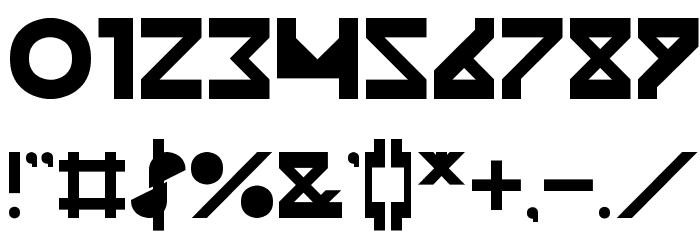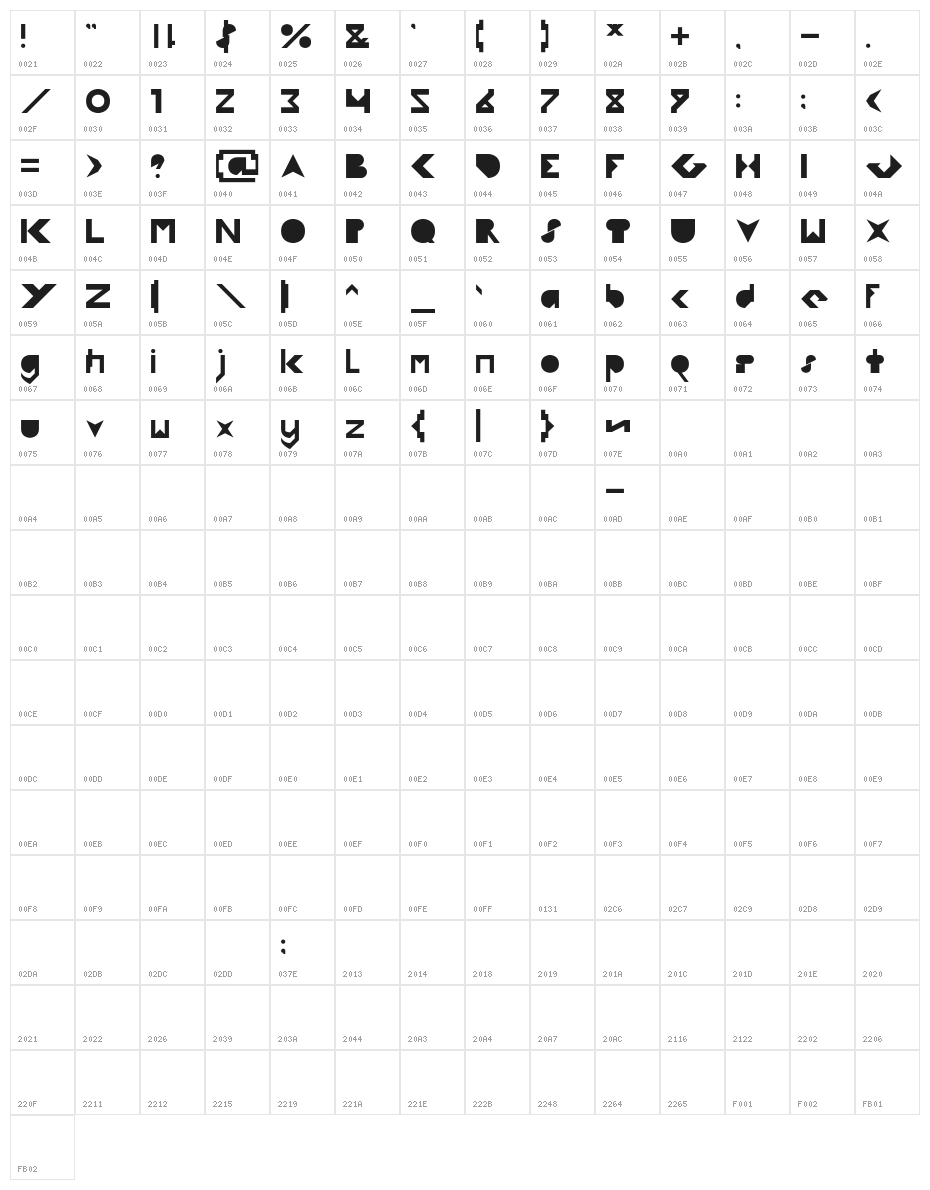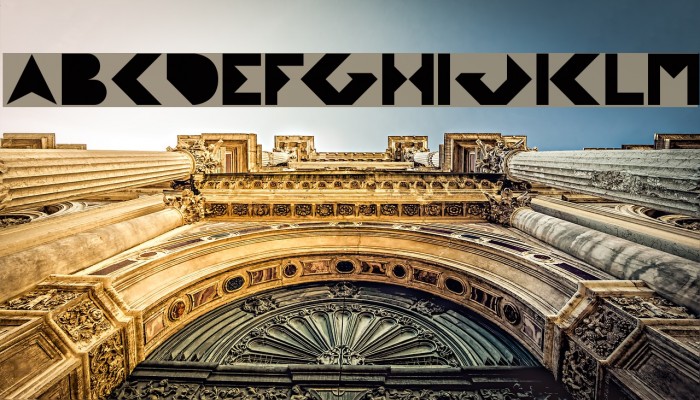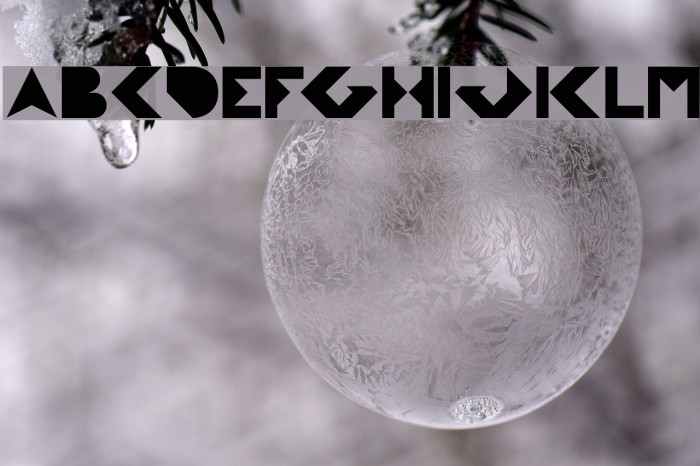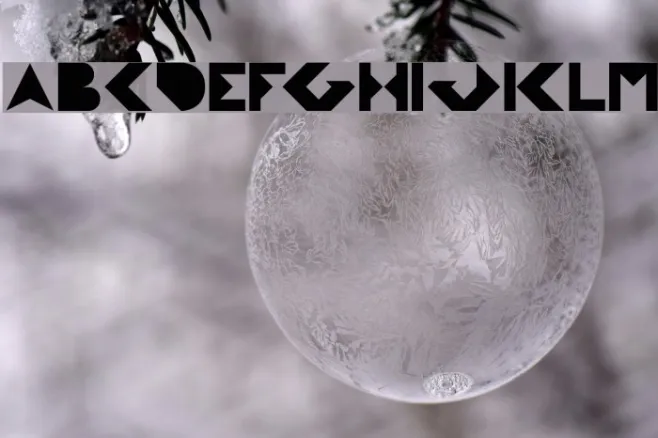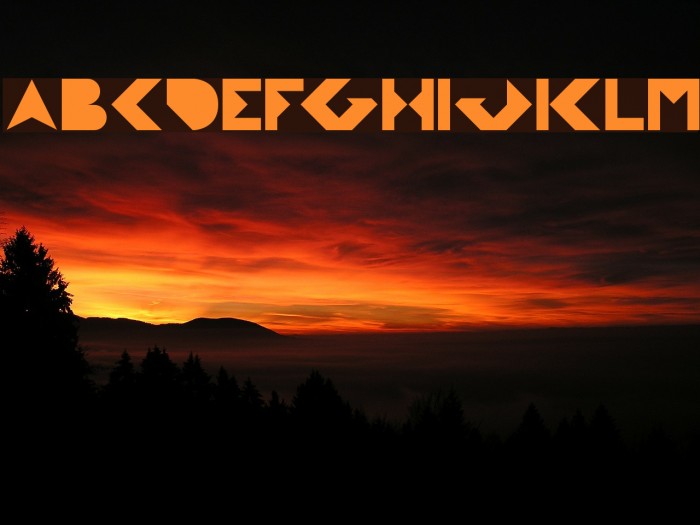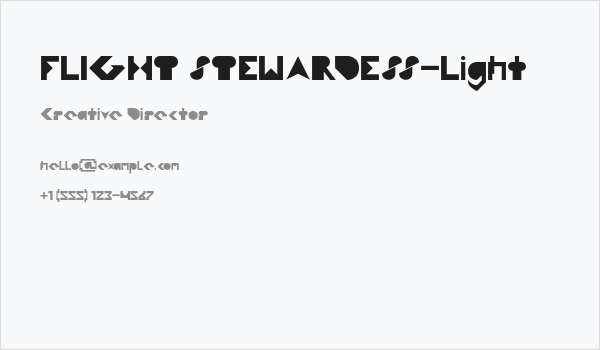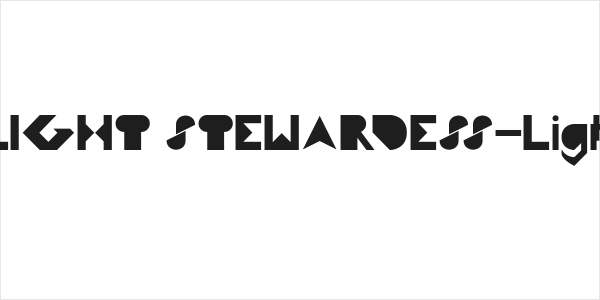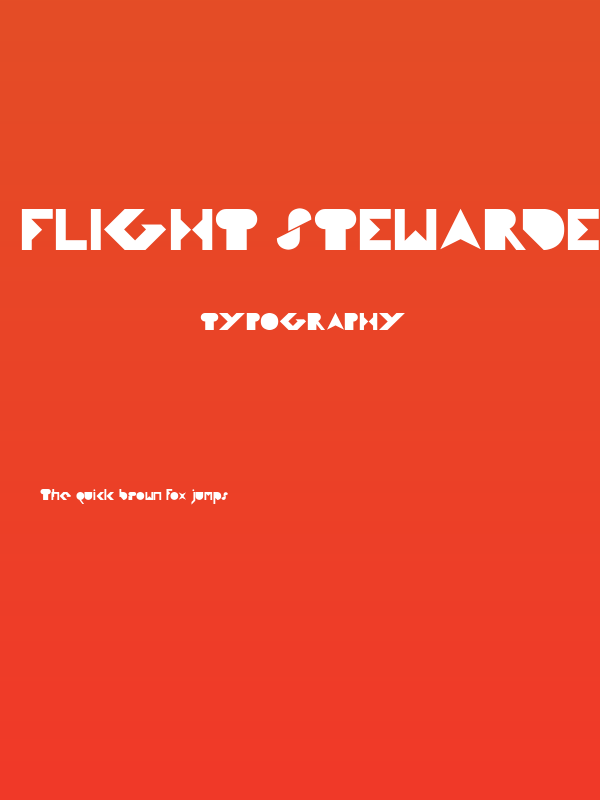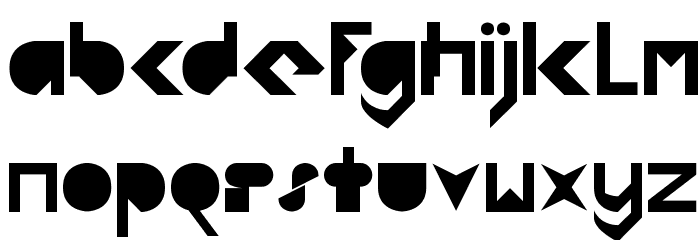
FLIGHT STEWARDESS-Light Font
FLIGHT STEWARDESS-Light Description
This font features a bold, geometric design with sharp angles and a futuristic aesthetic. The characters are constructed with a combination of straight lines and pointed edges, creating a dynamic and eye-catching appearance. The uppercase letters are particularly striking, with a strong presence that commands attention. The lowercase letters maintain the same geometric style, ensuring consistency across the typeface. Numbers and special characters are designed to match the overall theme, providing a cohesive look. The font's unique style makes it suitable for projects that require a modern and innovative touch.
Proposed ProjectsIdeal for branding, posters, album covers, and any project seeking a modern, edgy look.